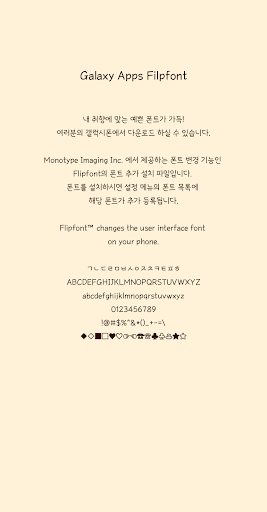
HUHohopang™ Korean Flipfont
HUHohopang is a scripts that monotone unjoined typeface, and style like a pen-shaped.
Font Size : Normal, Font Weight : Medium